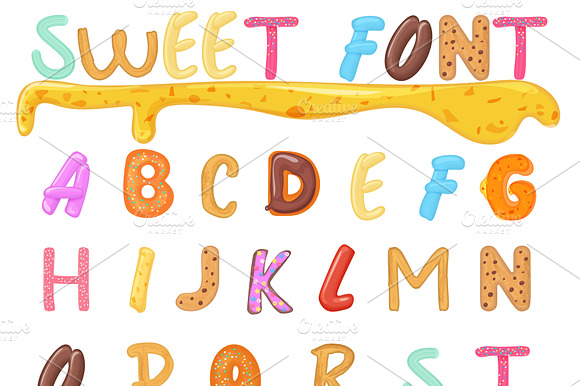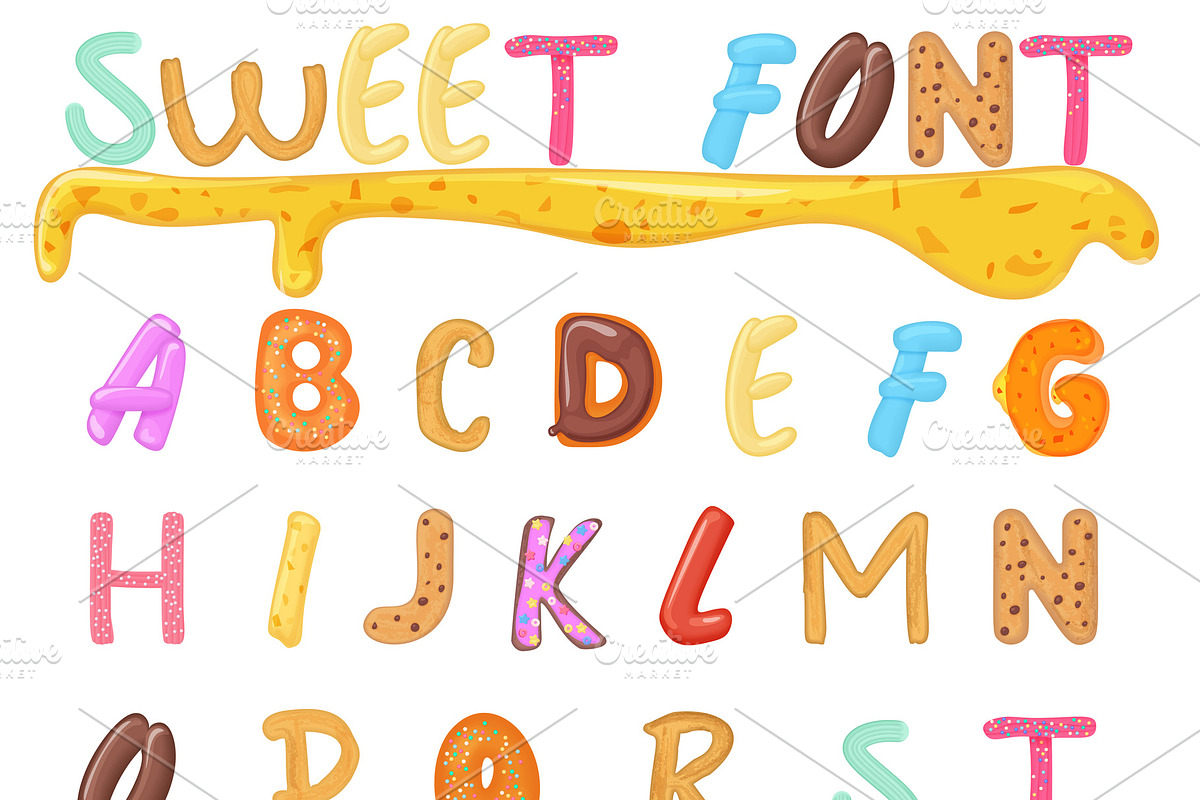
Sweets, cookies, bakery font
Sweets, cookies and bakery font design. Kids style funny alphabet letters
Sweets, cookies, bakery font by Lemberg Vector fits naturally into Branding, posters, packaging, typography.